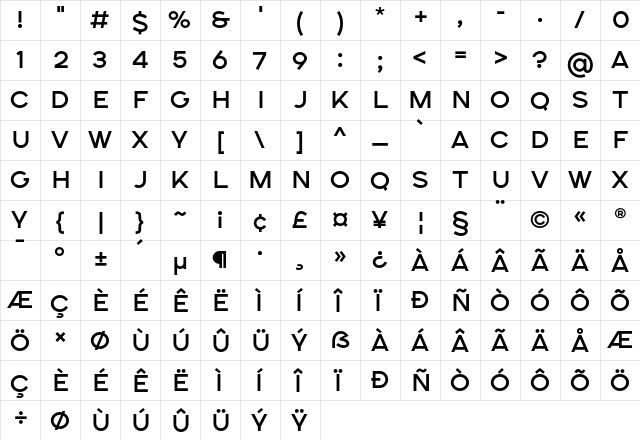
SONGER SemiExpanded Medium
| Foundry | Alexander Pravdin |
| Designer | Alexander Pravdin |
Design Context for SONGER SemiExpanded Typeface
SONGER SemiExpanded is a composed and adaptable typeface that performs quietly and consistently across a wide range of design contexts.